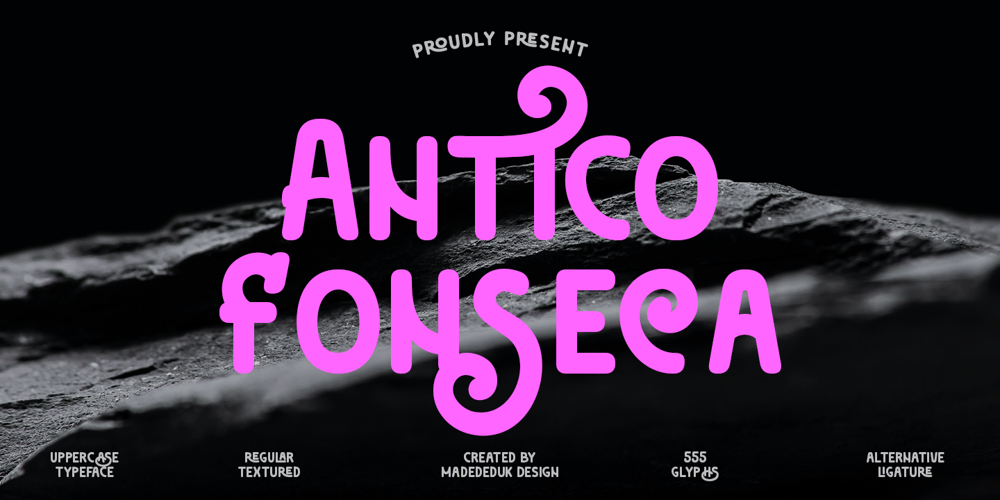
Antico Fonseca Font Family was designed by madededuk and published by madeDeduk. Antico Fonseca contains 2 styles and family package options. Antico Fonseca is a vintage typography style. It easily cooperates together and is perfect for creating the traditional style great for quotes and easily make a logotype or badge for your logo with this font. Come with special features regular and textured with a lot of alternative and ligature style.